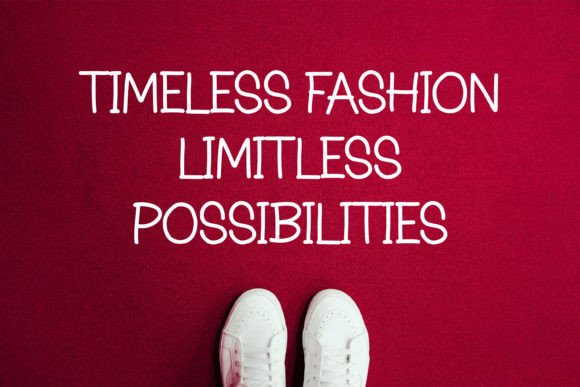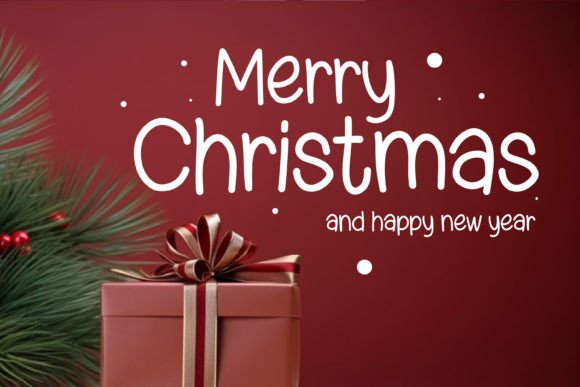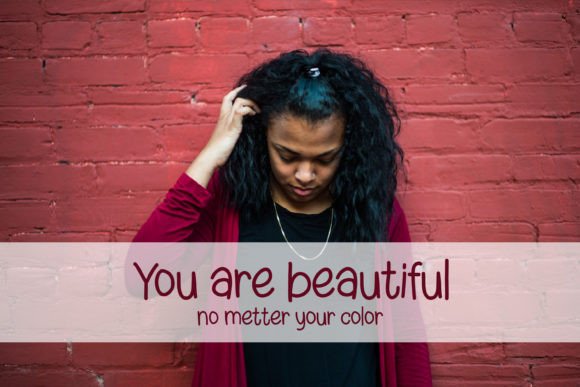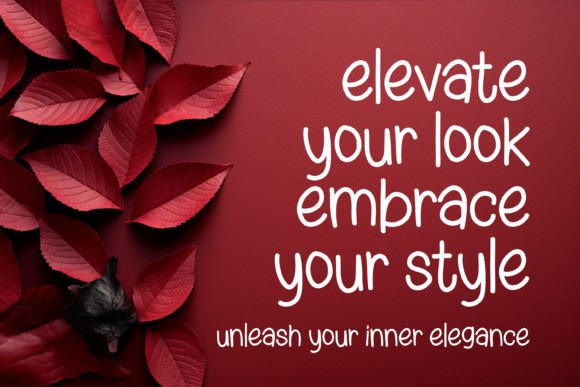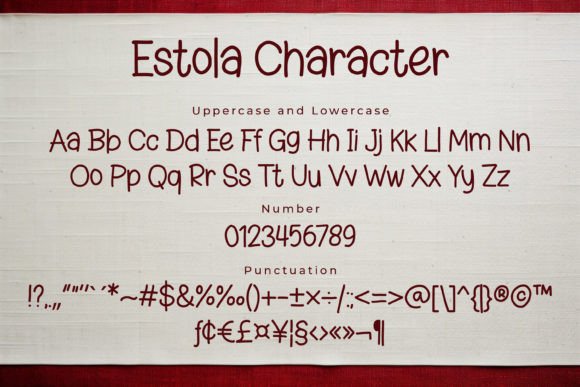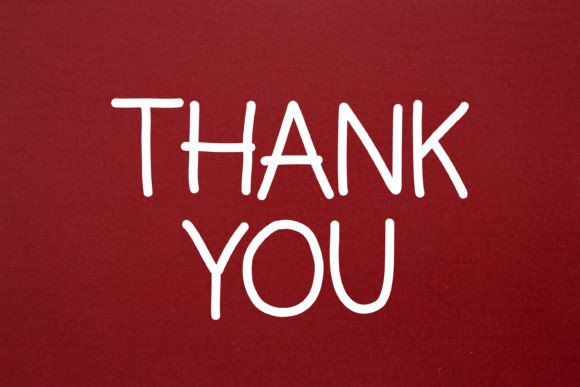
Introducing Estola: The Elegant Handwritten Font for Creative Designs
In the world of typography, a good font can make all the difference in the success of a design project. For designers and crafters looking for a touch of elegance and sophistication, Estola Font is an excellent choice. This beautifully elegant handwritten font is designed to capture the essence of personal touch and creativity, making it perfect for a wide range of applications.
The Characteristics of Estola Font
Estola Font boasts flowing, natural strokes that give it a charming, human feel. Its delicate and refined style brings a sense of sophistication and warmth to any design, making it ideal for projects that require a personal touch. The font’s elegant appearance is perfect for logos, wedding invitations, social media posts, or branding, allowing designers to create memorable and impactful designs.
What Makes Estola Font Stand Out?
So, what sets Estola Font apart from other fonts? Here are a few key features that make it a standout choice:
• Elegant and Refined Style: Estola Font’s delicate strokes and refined style give it a sophisticated and elegant appearance.
• Flowing and Natural: The font’s flowing, natural strokes create a charming, human feel that adds a personal touch to any design.
• Versatile: Estola Font is perfect for a wide range of applications, from logos and wedding invitations to social media posts and branding.
• Memorable and Impactful: The font’s elegant appearance and personal touch make it ideal for creating memorable and impactful designs.
Using Estola Font in Your Designs
Estola Font is incredibly versatile and can be used in a variety of design projects. Here are a few ideas to get you started:
• Logos: Create a professional and elegant logo for your business or brand with Estola Font.
• Wedding Invitations: Add a touch of sophistication and romance to your wedding invitations with Estola Font.
• Social Media Posts: Use Estola Font to create eye-catching and engaging social media posts that stand out from the crowd.
• Branding: Establish a strong brand identity with Estola Font, perfect for creating a cohesive and recognizable brand image.
Why Choose Estola Font?
With so many fonts available, why choose Estola Font? Here are a few reasons why designers and crafters love Estola:
• Unique and Creative: Estola Font offers a unique and creative way to add a personal touch to your designs.
• Elegant and Sophisticated: The font’s elegant and refined style brings a sense of sophistication and warmth to any design.
• Easy to Read: Estola Font is clear and easy to read, making it perfect for body text and headlines.
• High-Quality: Estola Font is a high-quality font that is designed to deliver exceptional results.
In conclusion, Estola Font is a beautifully elegant handwritten font that captures the essence of personal touch and creativity. Its flowing, natural strokes and delicate and refined style make it perfect for a wide range of design projects, from logos and wedding invitations to social media posts and branding. With its unique and creative appearance, Estola Font is sure to add a touch of sophistication and warmth to any design.